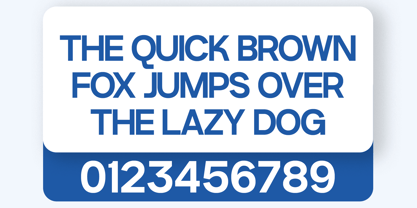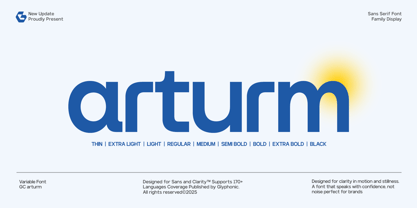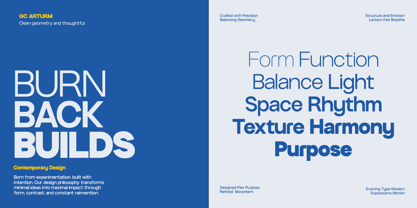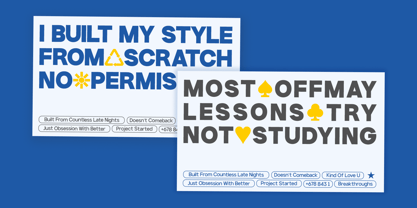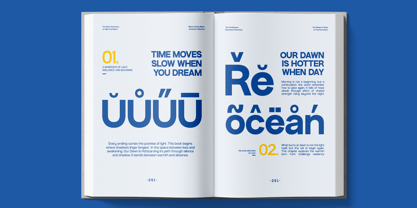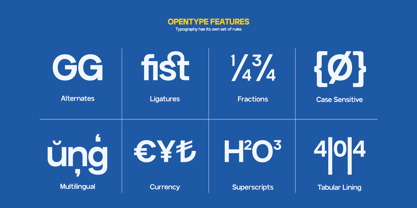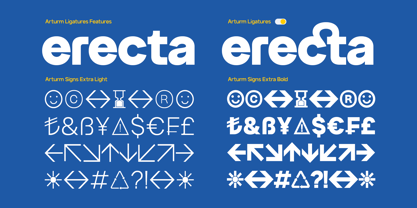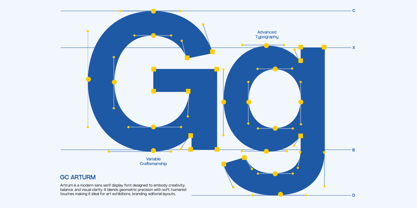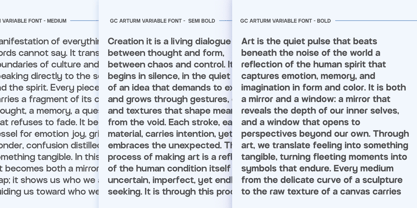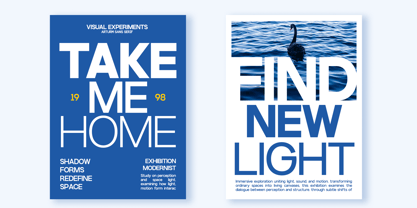
GC arturm
by Onyx Studio
The GC arturm Font Family was designed by Muhammad Hafiizh Solana and published by Onyx Studio. GC arturm contains 9 styles and family package options. More about this family
GC Arturm – Modern Variable Sans is a versatile sans serif typeface designed with precision, balance, and clarity in mind. Built as a variable font, it offers seamless flexibility across multiple weights — from Thin to Black — giving designers full control over tone and expression. Its clean geometry and refined simplicity create a modern aesthetic that adapts effortlessly to any visual context. Perfect for branding, user interfaces, motion graphics, editorial layouts, and corporate design, GC Arturm delivers a confident and contemporary presence. Each character is crafted for optical harmony, ensuring legibility and visual consistency across every weight and size. Features: - Variable Font (Thin–Black) - Uppercase & Lowercase - Numbers & Punctuation - Modern Geometric Construction - Multilingual Support (170+ Languages) Bring flexibility, precision, and modern clarity to your design with GC Arturm – Modern Variable Sans.
Designers: Muhammad Hafiizh Solana
Foundry: Onyx Studio